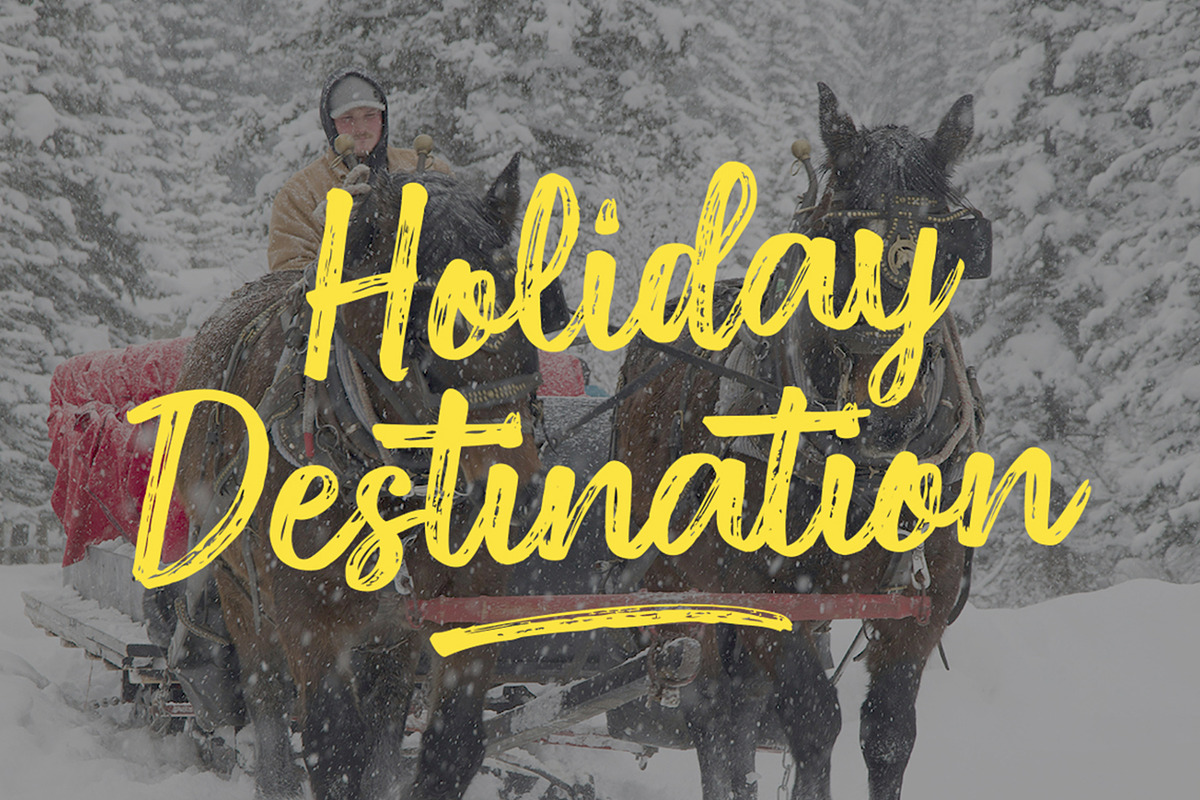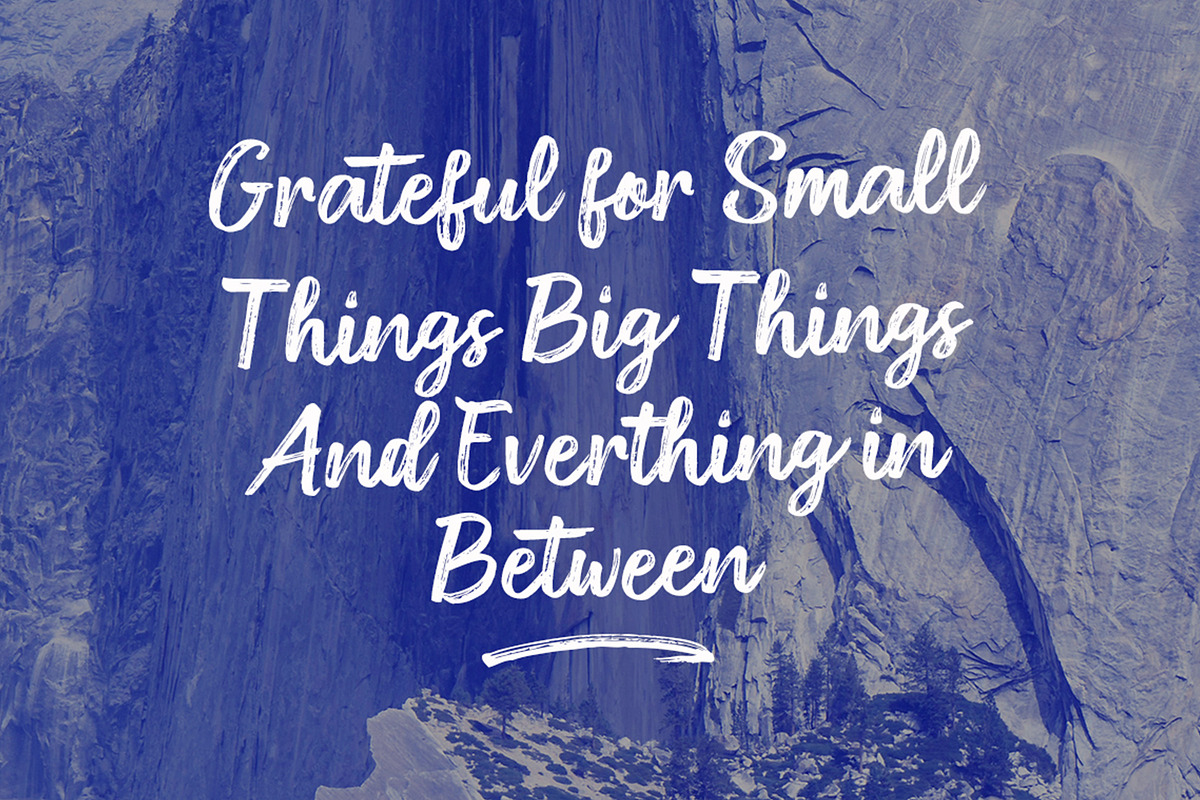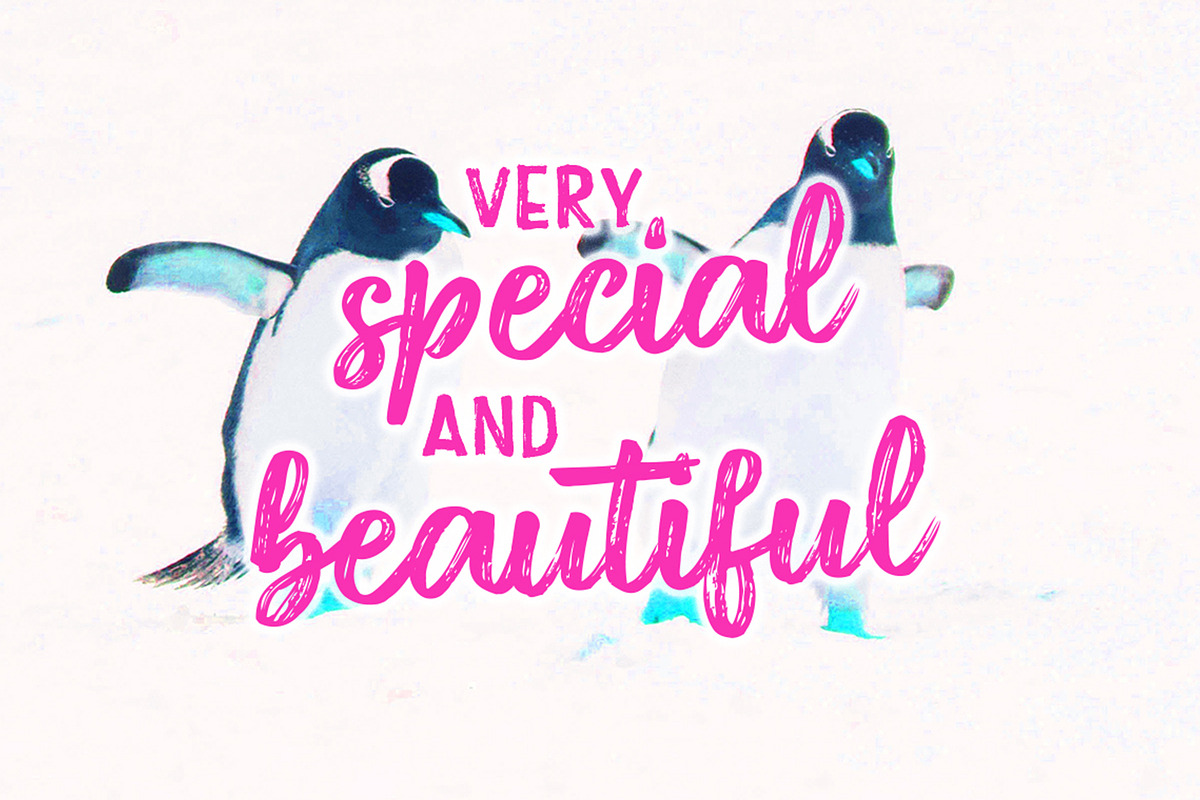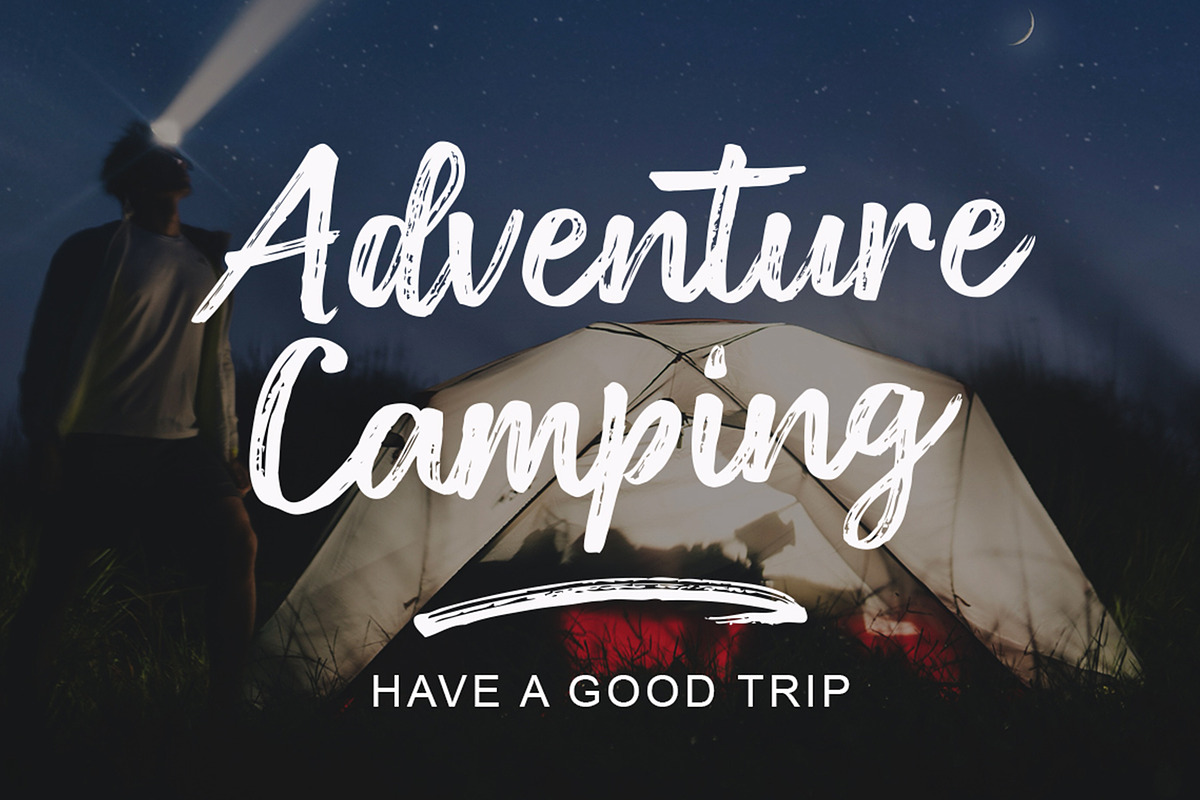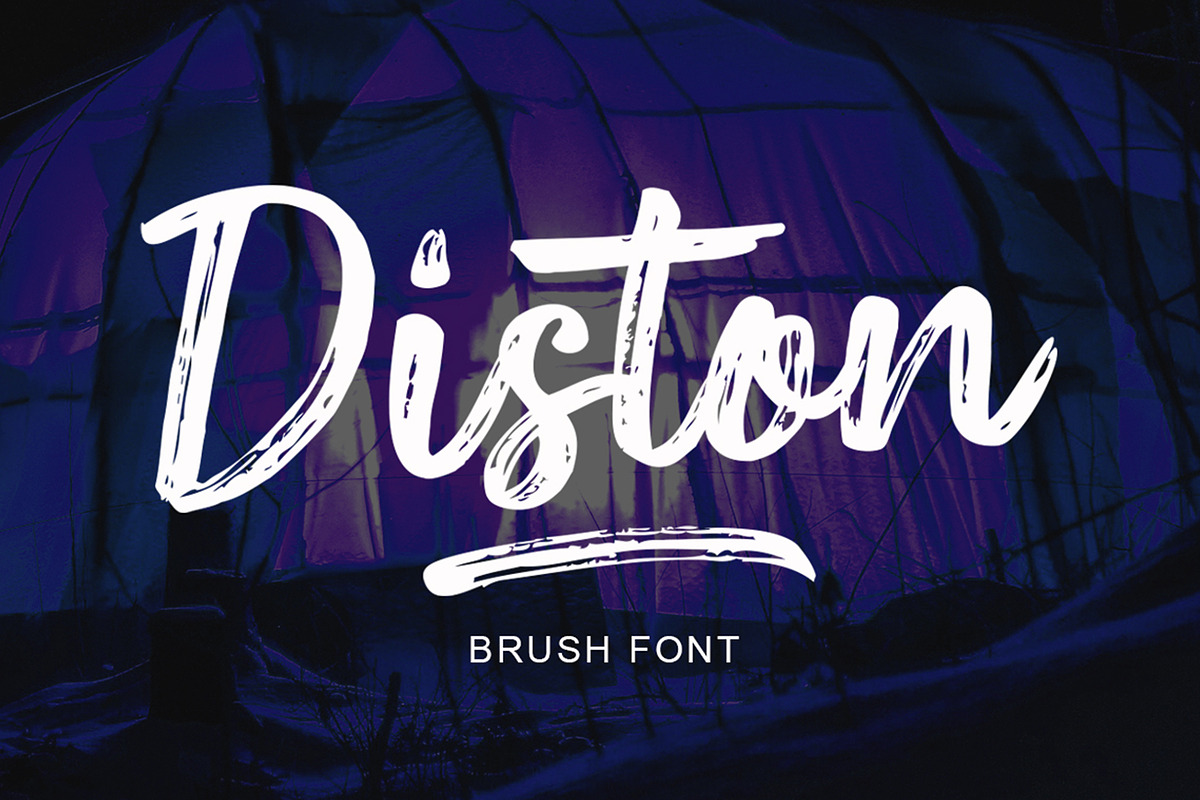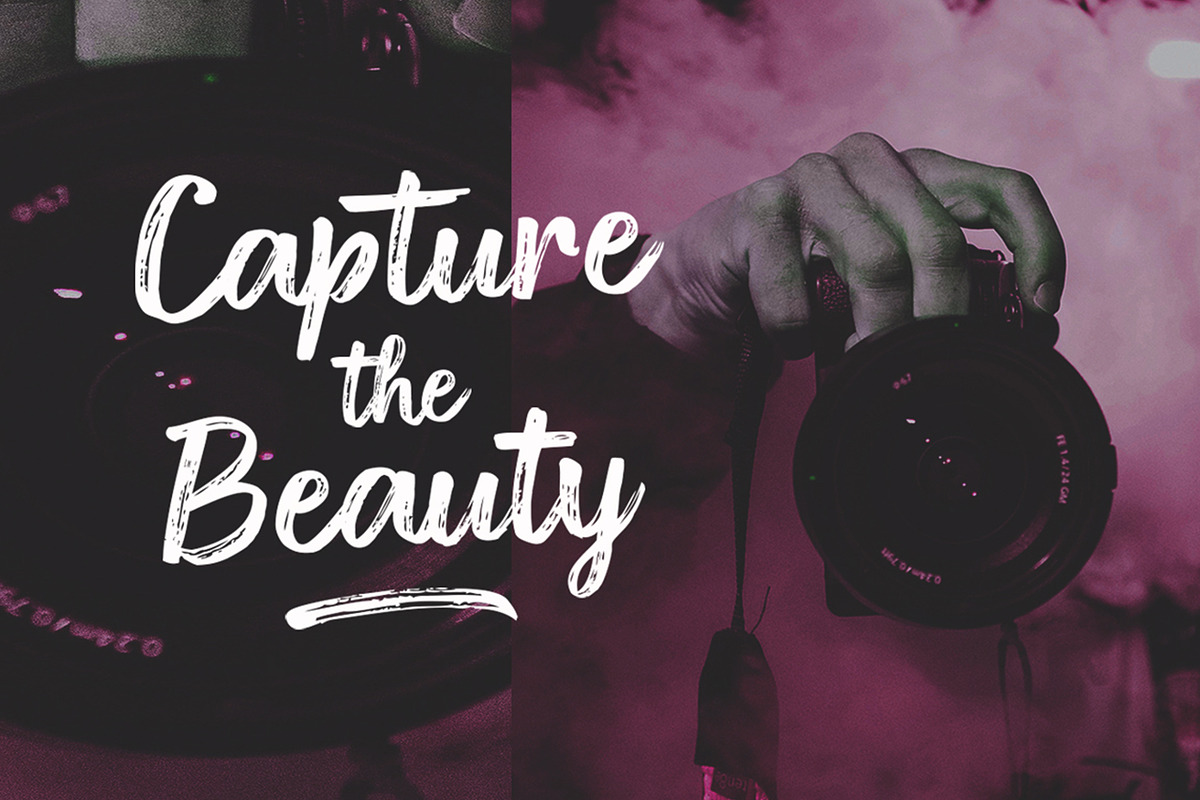
Diston Brush
Diston a new font that is brushed is very attractive with a natural, detailed and perfect texture, also has an additional Diston Underlines. Perfect for brand projects, logos, product packaging, posters, invitations, greeting cards, news, blogs, everything including personal charm etc.